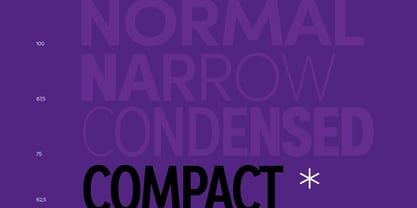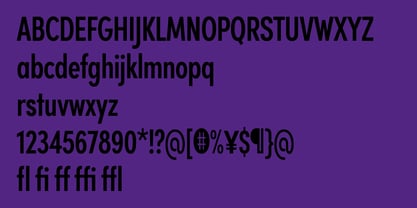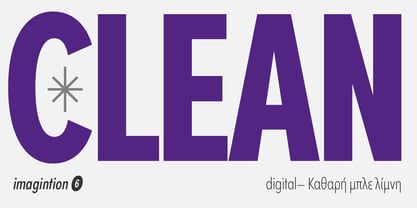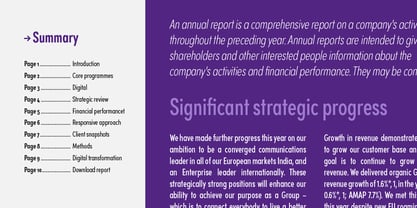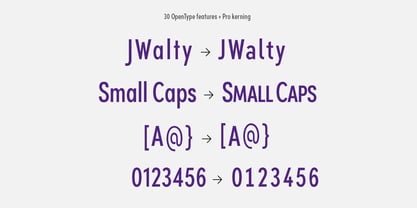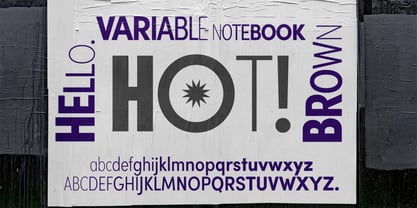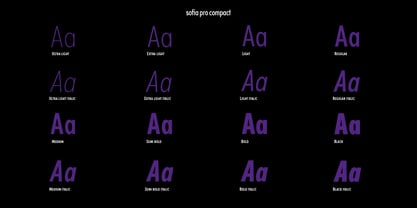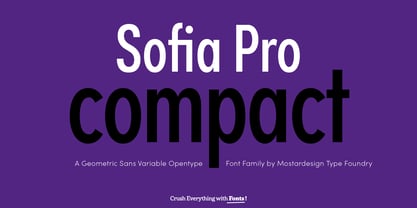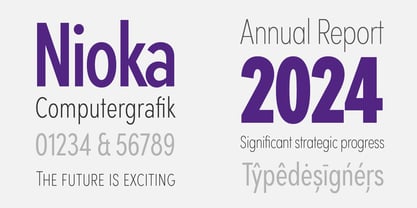
Sofia Pro Compact
by Mostardesign
The Sofia Pro Compact Font Family was designed by Olivier Gourvat and published by Mostardesign. Sofia Pro Compact contains 18 styles and family package options.
Sofia Pro Compact strikes the perfect balance between space-saving efficiency and comfortable readability. With slightly narrower proportions than the standard Sofia Pro, it offers a streamlined look while preserving the family’s signature warmth and clarity. Designed for branding, UI design, and editorial use, Sofia Pro Compact maintains excellent legibility across various applications. Its broad weight range, language support, and variable font options ensure seamless adaptability, making it a go-to choice for designers who need both elegance and efficiency.
About Mostardesign
Founded in 2009 by Olivier Gourvat, Mostardesign is an independent type foundry with a passion for creating high-quality, versatile typefaces. Specializing in both type design and custom projects, we have created iconic fonts such as Sofia Pro, Filson Pro, Univia, and our latest addition, Solena Pro.Olivier’s roots as the son of a sign painter deeply influenced his design journey. Surrounded by his father’s illustrations and paintings, Olivier developed a passion for design that led him to start his career as a graphic designer before founding Mostardesign.Since its inception, Mostardesign has been dedicated to producing serif, geometric, and contemporary fonts that offer unmatched versatility. Our typefaces are trusted by brands in a variety of sectors, from high-tech companies and consumer goods to museums, enhancing brand identities and marketing campaigns worldwide.At Mostardesign, we believe that great type can make all the difference - Crush everything with Fonts !